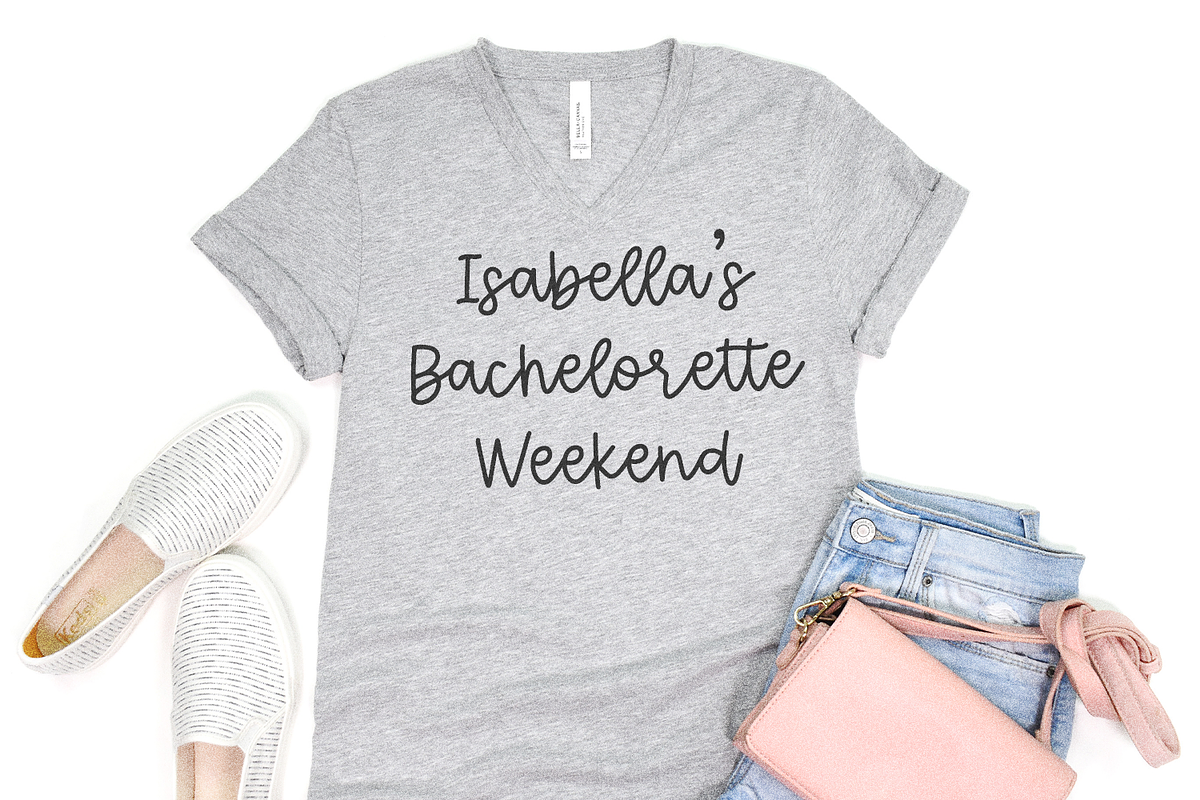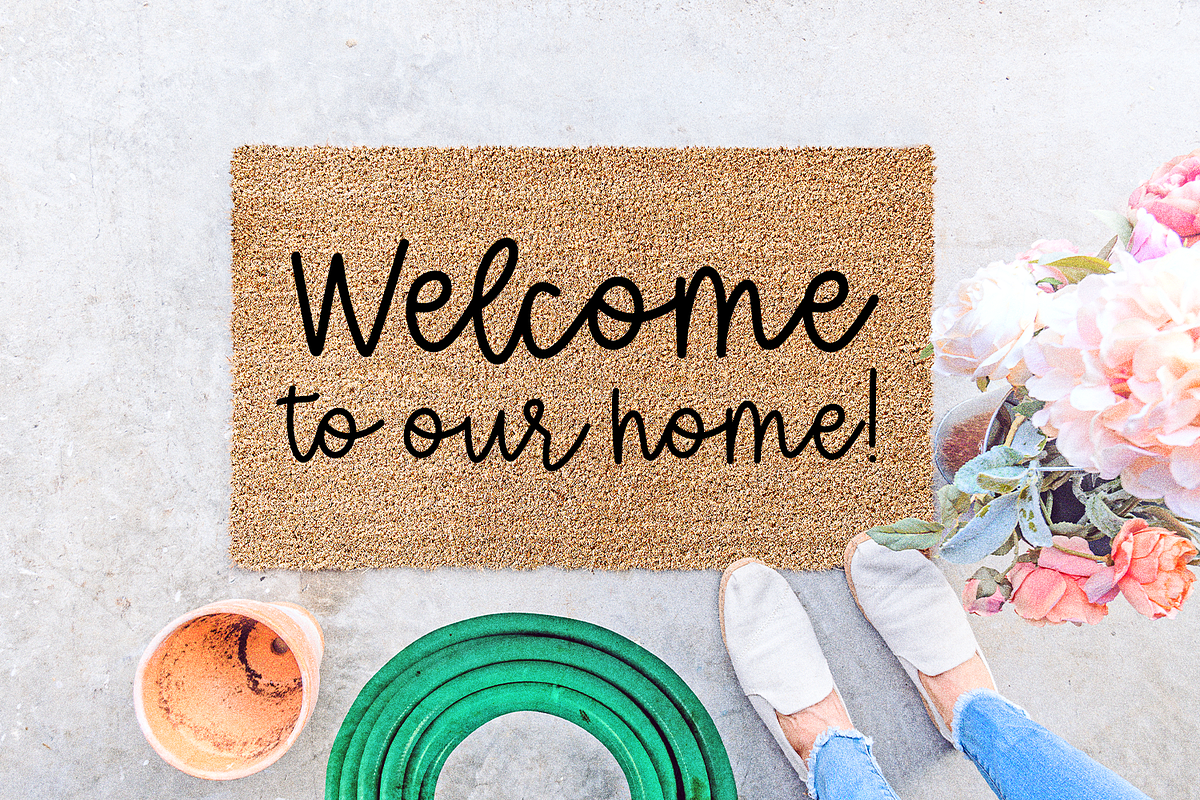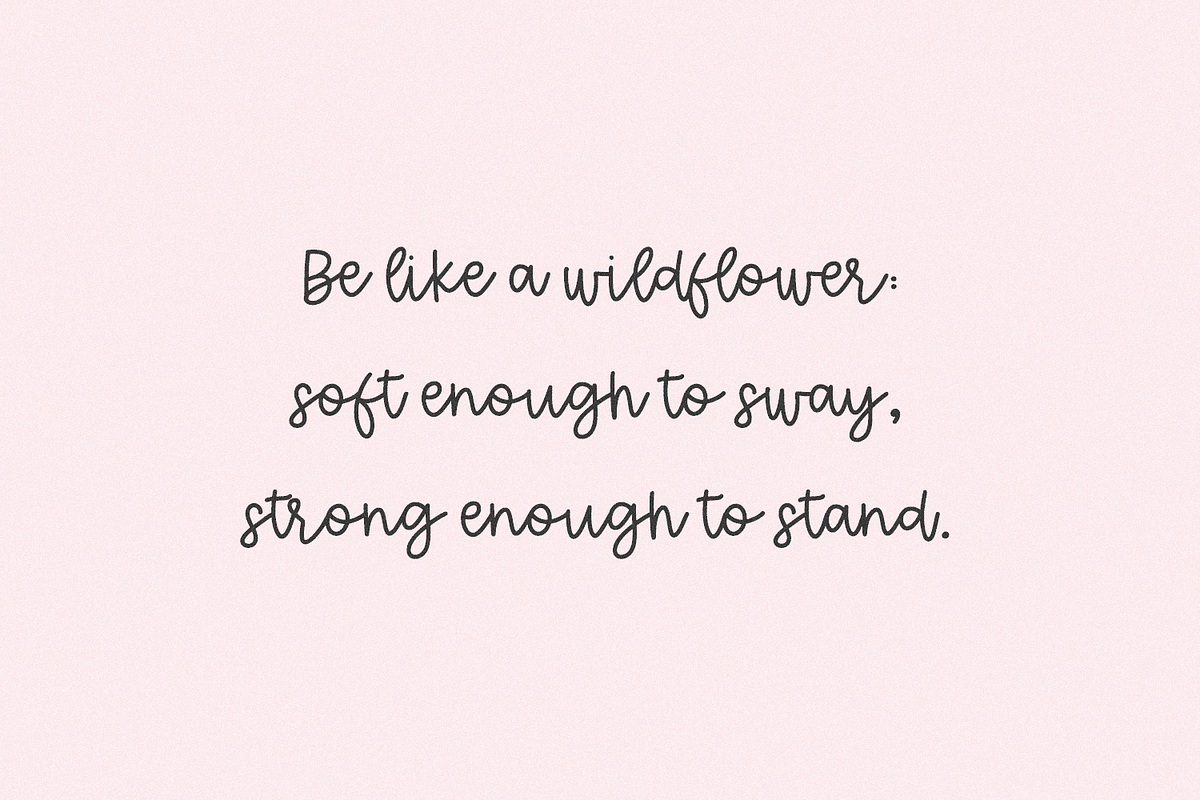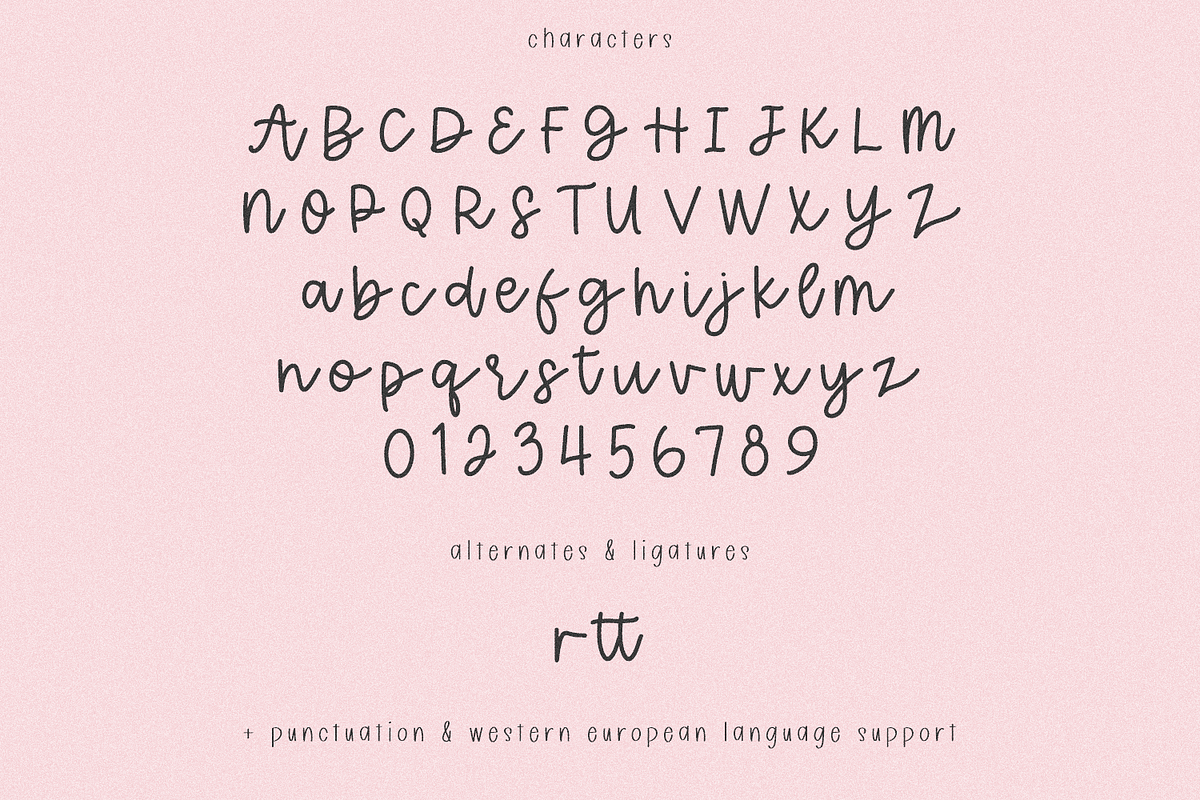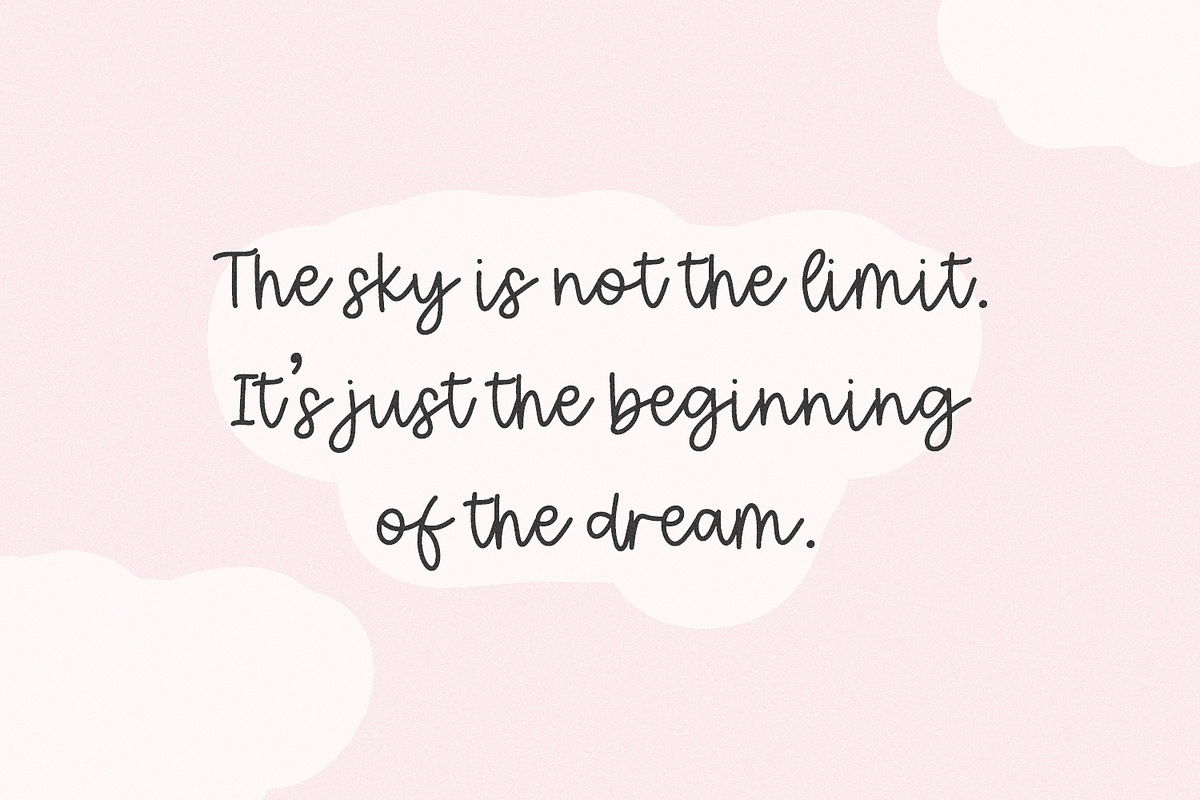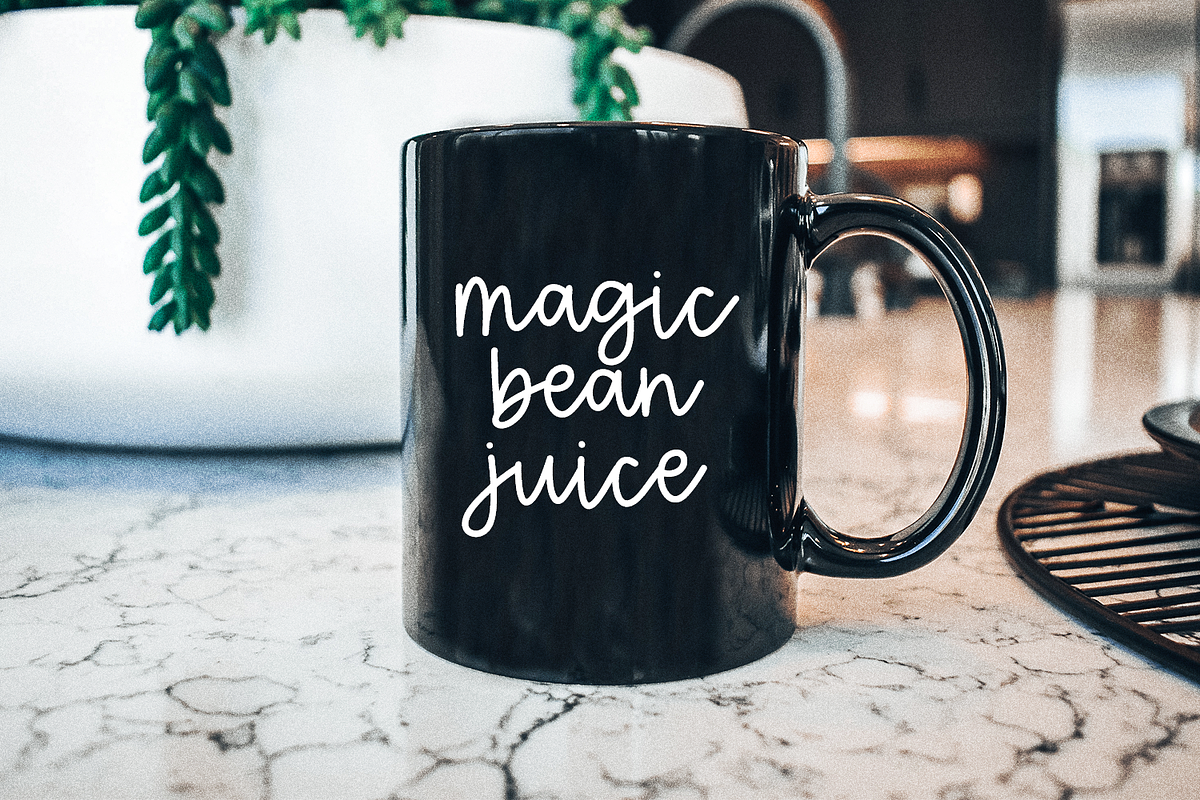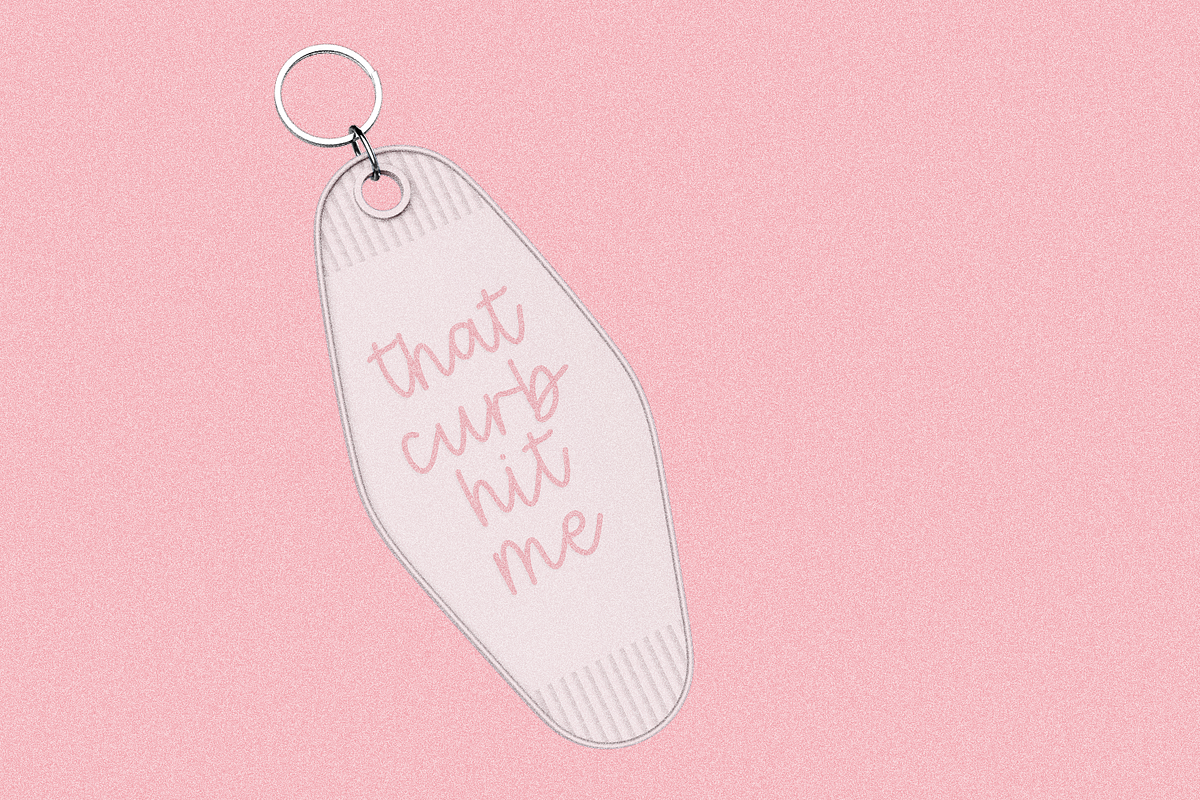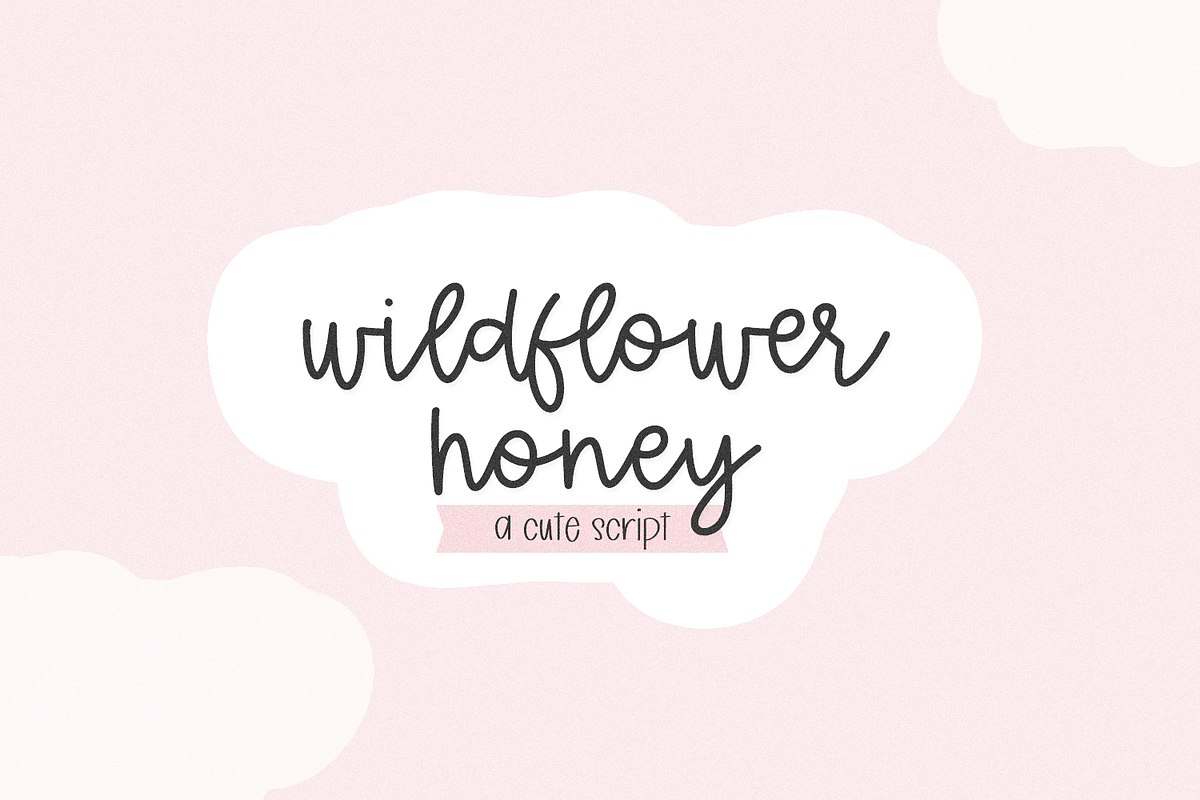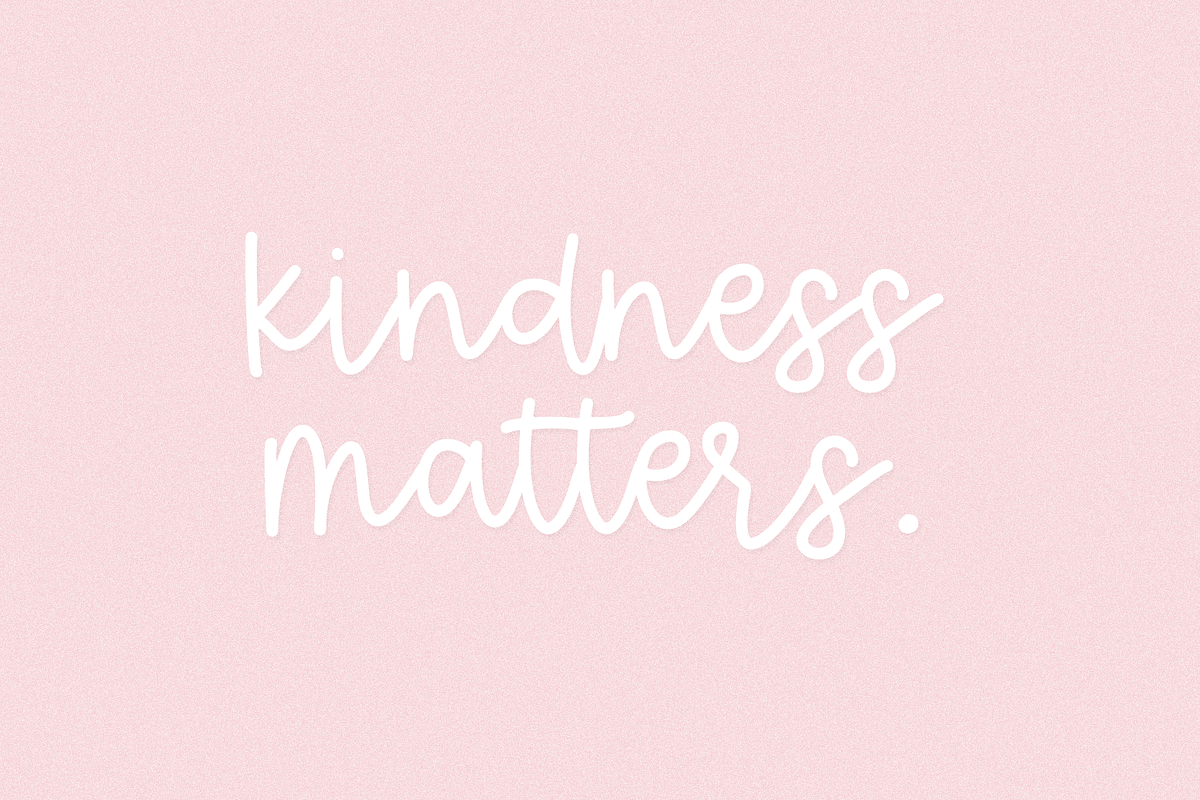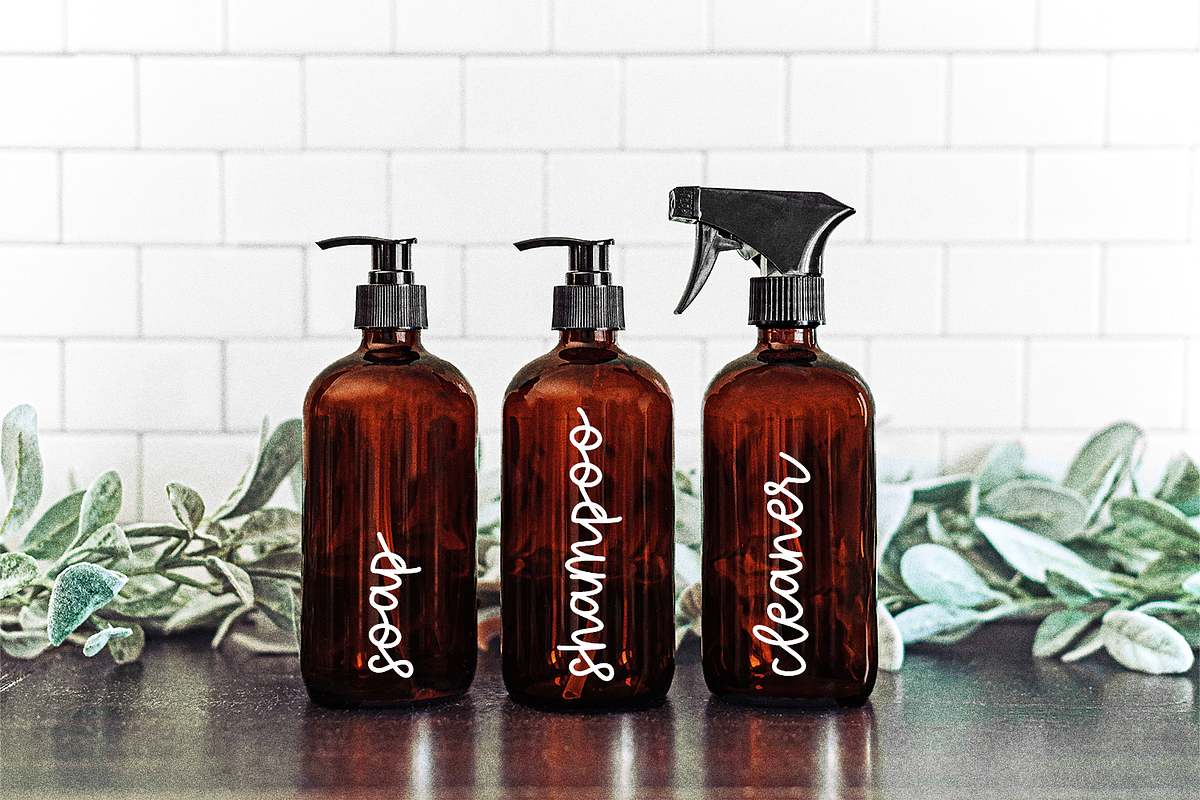
Wildflower Honey Script
Wildflower Honey Script is a cute & sweet font. It’s super neat & tidy, making it a great fit for a variety of uses: Goodnotes font, Notability font, use for note-taking, darling farmhouse designs, quotes, logos & branding, and even wedding invitations.
Wildflower Honey includes:
- full upper + lowercase characters
- numbers + punctuation
- 1 alternate character - r
- 1 ligature - tt
- Western European language support - English, French, Spanish, Portuguese (Brazil), Portuguese (Portugal), Italian, German (Germany), German (Austria), Dutch, Danish, Swedish, Norwegian (Bokmål and Nynorsk), Finnish, Icelandic, Irish, Welsh